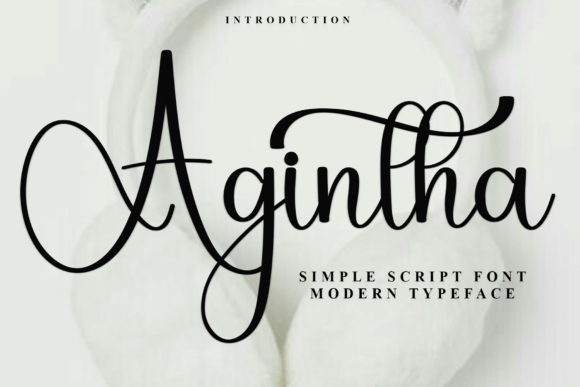
The Perfect Font for Your Creative Masterpiece
Imagine you’re working on a design project, and you can’t find the right font to convey the emotions and feelings you want to express. The perfect font can make all the difference, elevating your design from ordinary to extraordinary. That’s where the Agintha Font comes in – a beautiful and eye-catching font that adds a soft, unique touch to any design.
Agintha Font Key Features
- Font Family: Agintha is a script font designed for elegant and sophisticated typography.
- Unique Characteristics: Agintha features a unique blend of cursive and script elements, creating a distinctive and eye-catching look.
- Font Weight: Available in Regular and Bold weights, allowing for flexibility in design applications.
Agintha Font Review
As a designer, I had the opportunity to work with the Agintha font, and I must say it’s a beautiful addition to any design project. ✨ Here are some of the things that I think work well:
- Unique flair: The Agintha font has a distinctive flair that sets it apart from other fonts in its category. It’s perfect for adding a touch of elegance to your designs.
- High-quality glyphs: The font features high-quality glyphs that are well-crafted and visually appealing.
- Legibility: The font is highly legible, making it perfect for long blocks of text.
However, like any font, Agintha has its limitations. ⚠️ Here are some of the things that I think could be improved:
- Limited language support: The font only supports a limited number of languages, which may be a concern for designers working on multilingual projects.
- Lack of italics: While the font has a beautiful regular style, it lacks an italic version, which may limit its versatility.
Overall, I think the Agintha font is a great choice for designers looking for a unique and elegant font. While it has some limitations, its unique flair and high-quality glyphs make it a valuable addition to any design project.
Agintha Font Practical Application Guide
Getting the Most Out of Agintha Font
For optimal results, use the Agintha font for titles, headings, and short text passages. It pairs well with clean sans-serif fonts for body text. Experiment with different font sizes and colors to create visual interest.
The Agintha font is ideal for:
- Event and party invitations
- Personalized gifts and stationery
Alternatives to Agintha Font
Compared to Agintha Font, Playfair Display has a more formal and traditional feel, while Agintha Font has a more modern and minimalist look. While Agintha Font is more versatile, Playfair Display is better suited for specific occasions that require a touch of luxury.
Montserrat is a modern sans-serif font designed for urban environments. It’s clean, geometric, and highly legible, making it perfect for use in digital media, signage, and street art. When to use: Urban branding, digital media, street art, and signage.
Compared to Agintha Font, Montserrat has a more modern and edgy feel, while Agintha Font has a more classic and elegant look. While Agintha Font is more suitable for corporate branding, Montserrat is better suited for urban and digital projects.